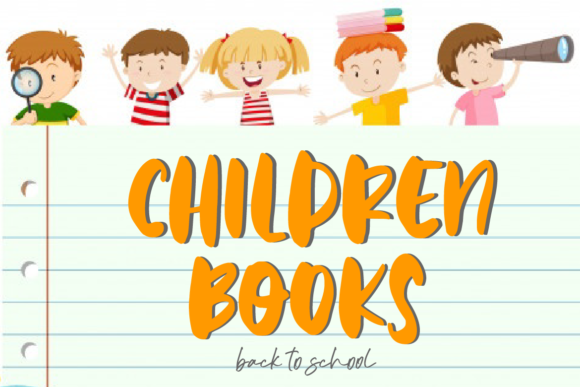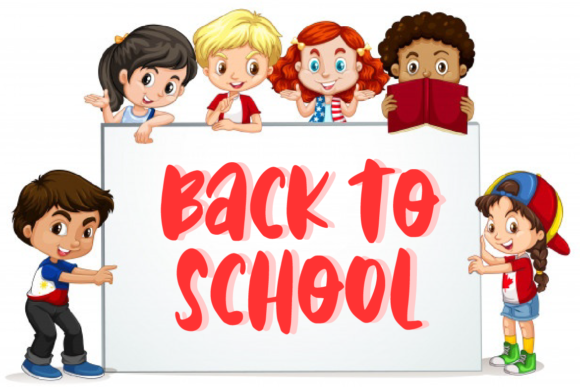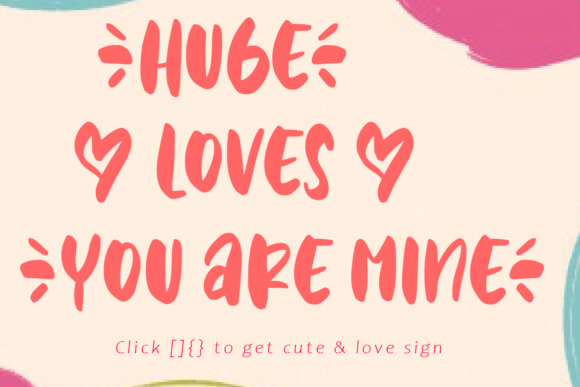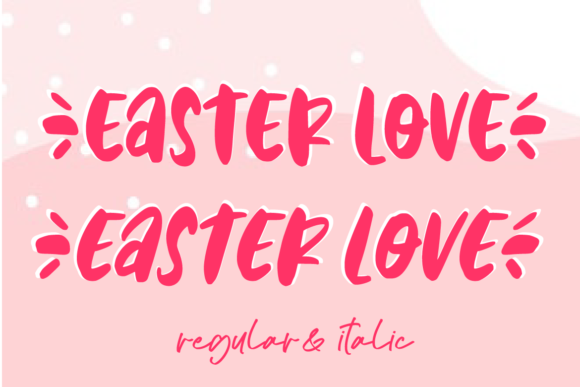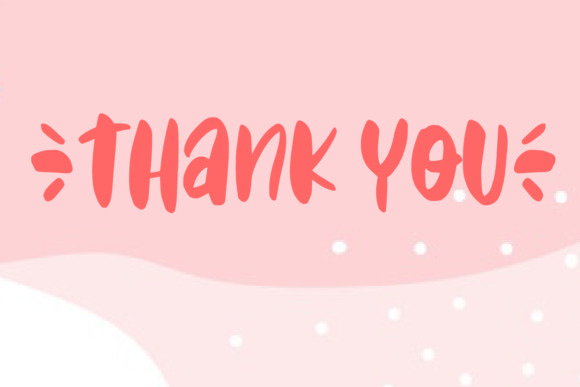
Easter Love Font: The Perfect Addition to Your Easter Crafting Projects
Are you looking for a font that captures the playful and friendly spirit of Easter? Look no further than Easter Love Font! This delightful display font is perfect for adding a touch of whimsy and charm to your Easter crafting projects, social media posts, quotes, headers, and decorations.
What is Easter Love Font?
Easter Love Font is a carefully crafted display font that embodies the joy and playfulness of the Easter season. Its friendly and approachable design makes it ideal for a wide range of creative projects, from DIY Easter crafts to social media graphics.
Features of Easter Love Font
- Playful and Friendly Design: Easter Love Font boasts a unique and charming design that is sure to bring a smile to anyone’s face.
- Highly Versatile: This font is perfect for a variety of creative projects, including crafting, social media posts, quotes, headers, and decorations.
- Easily Readable: Despite its playful design, Easter Love Font is highly legible, making it perfect for use in a variety of contexts.
- Perfect for Easter-themed Projects: As its name suggests, Easter Love Font is specifically designed with Easter in mind, making it the perfect addition to your Easter crafting projects.
Uses for Easter Love Font
Easter Love Font is incredibly versatile, and can be used in a wide range of creative projects, including:
- Easter Crafting Projects: From Easter egg decorating to card making, Easter Love Font is the perfect addition to any Easter crafting project.
- Social Media Posts: Add a touch of Easter cheer to your social media posts with Easter Love Font.
- Quotes and Headers: Use Easter Love Font to add a playful touch to your quotes and headers.
- Decorations: From Easter banners to party decorations, Easter Love Font is perfect for adding a personal touch to your Easter decorations.
Why Choose Easter Love Font?
With so many fonts to choose from, why should you choose Easter Love Font? Here are just a few reasons:
- Unique Design: Easter Love Font boasts a unique and charming design that is sure to stand out from the crowd.
- Easily Customizable: Easter Love Font is highly customizable, making it easy to use in a variety of contexts.
- High-Quality: Easter Love Font is a high-quality font that is designed to deliver exceptional results.
Tips for Using Easter Love Font
Here are a few tips for getting the most out of Easter Love Font:
- Experiment with Colors: Easter Love Font looks great in a variety of colors, so don’t be afraid to experiment and find the perfect hue for your project.
- Pair with Other Fonts: Easter Love Font pairs well with a variety of other fonts, so consider combining it with other fonts to create a unique look.
- Use in Combination with Images: Easter Love Font looks great when used in combination with images, so consider adding it to your Easter graphics and photos.
| Font Name | Easter Love Font |
| Author | aminmario |
Easter Love Font is a playful and friendly display font that is perfect for adding a touch of whimsy and charm to your Easter crafting projects, social media posts, quotes, headers, and decorations. With its unique design, high versatility, and ease of use, Easter Love Font is the perfect addition to any Easter-themed project. So why wait? Download Easter Love Font today and start creating your own Easter masterpieces!